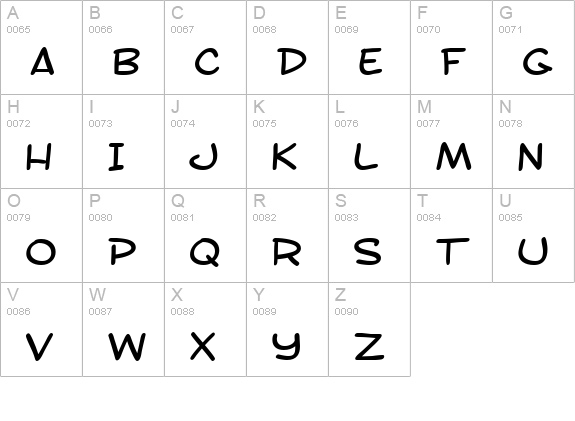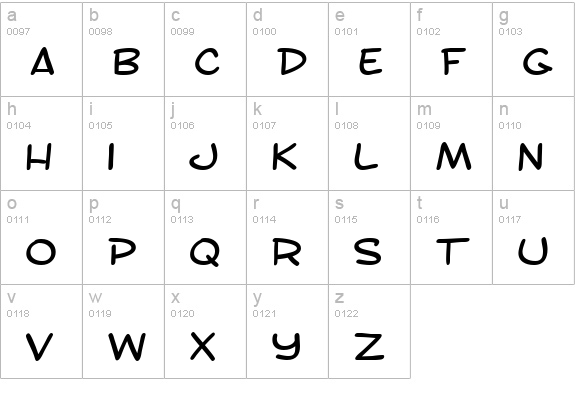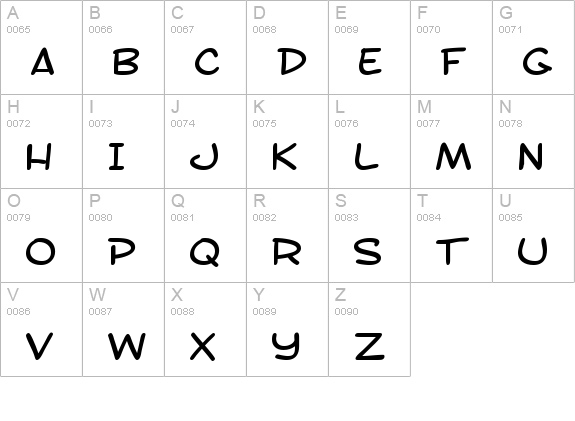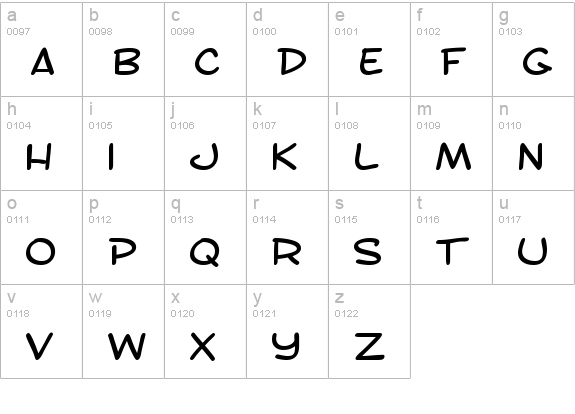
SF Toontime Extended Font Details
SF Toontime Extended is a distinctive, extended-width variant in the SF typeface family \xE2\x80\x94 well suited to design and typography projects.
SF Toontime Extended is a playful and vibrant font that adds a touch of whimsy to any design project. With its exaggerated letterforms and quirky details, this font captures the essence of fun and excitement. It is perfect for creating eye-catching headlines, children's books, cartoon logos, and any other design that requires a lighthearted and energetic touch. This font offers a wide range of extended characters, allowing you to add that extra bit of personality to your designs. Whether you're looking for a bold and attention-grabbing title or a playful and friendly body text, SF Toontime Extended has got you covered. One of the best things about SF Toontime Extended is that it is completely free! That's right, you can download this delightful font at FontsMarket.com without spending a dime. It's a fantastic opportunity to add a touch of whimsy to your design projects without breaking the bank. So why wait? Give your designs a dose of playful charm with SF Toontime Extended. Download it for free today at FontsMarket.com and let your creativity run wild!